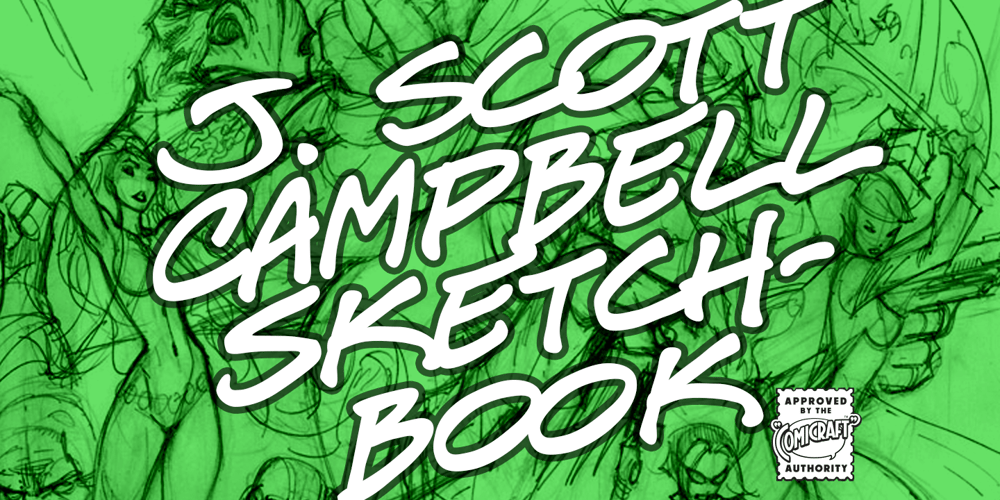
J Scott Campbell Sketchbook Font Family was designed by John Roshell and published by Comicraft. J Scott Campbell Sketchbook contains 1 styles and family package options. Created for J. SCOTT CAMPBELL’S DANGER GIRL SKETCHBOOK, this slick and stylish font is perfect for architectural drawings, marker comps or, um, sketchbooks!Artwork from https://www.comixology.com/Elephantmen-30-5-Man-and-Elephantman/digital-comic/9533 target=_blank>Elephantmen: Man and Elephantman by J. Scott Campbell